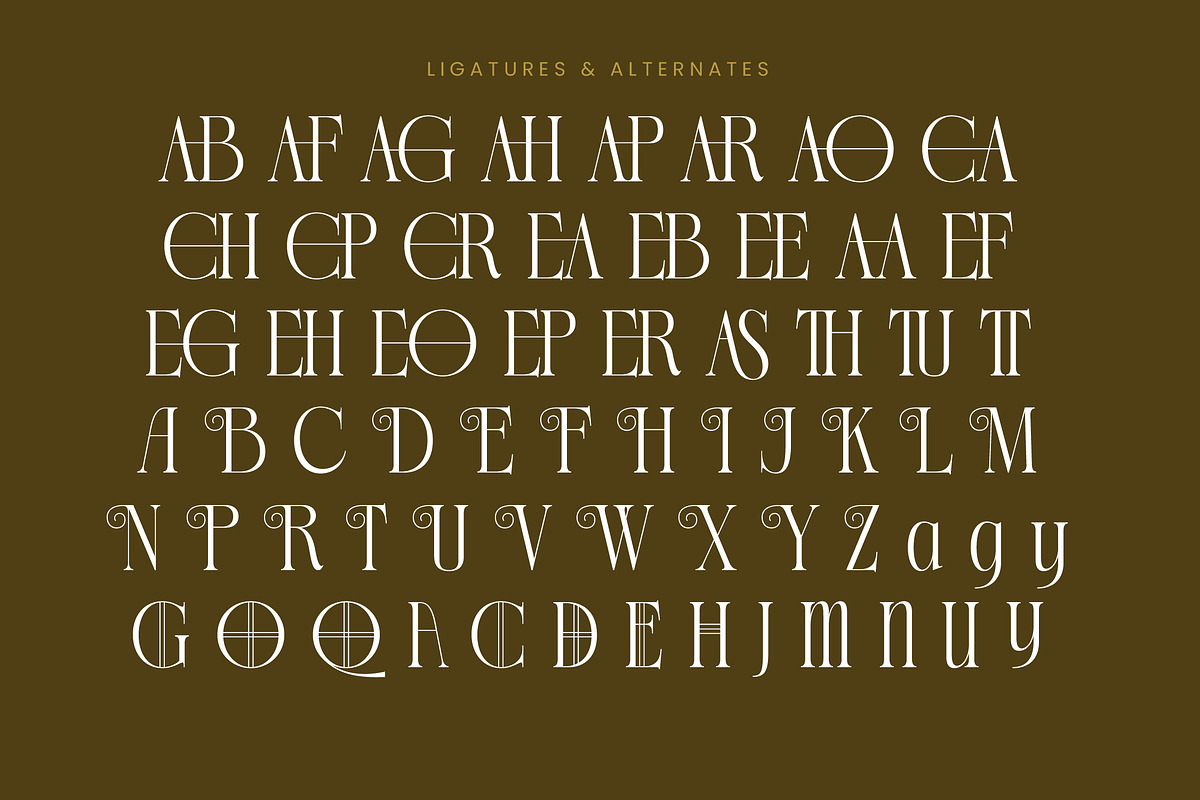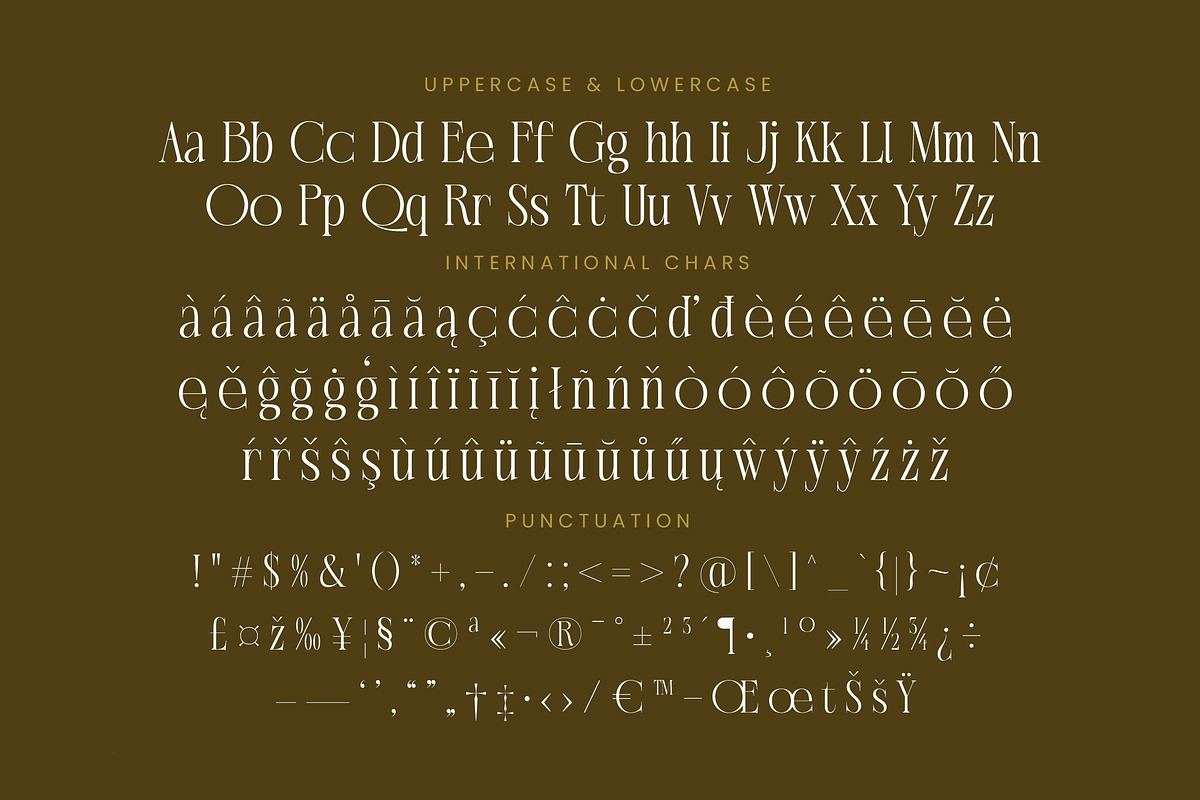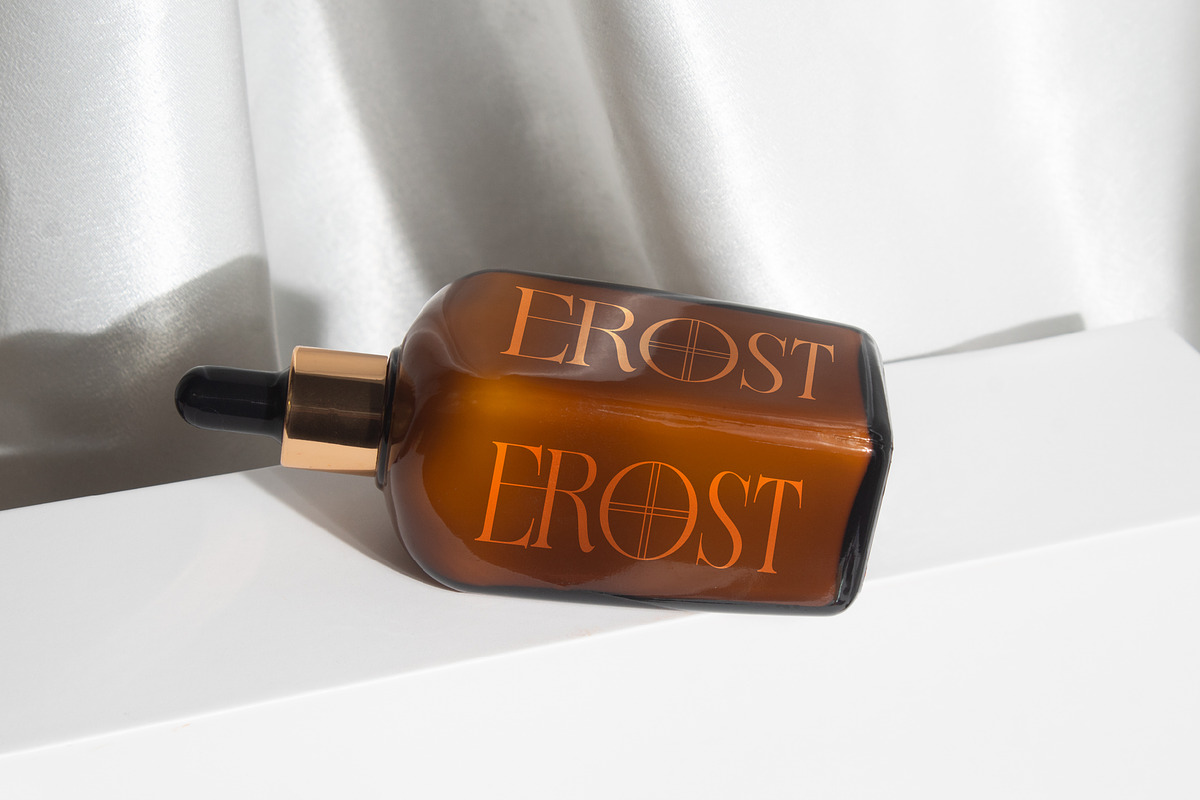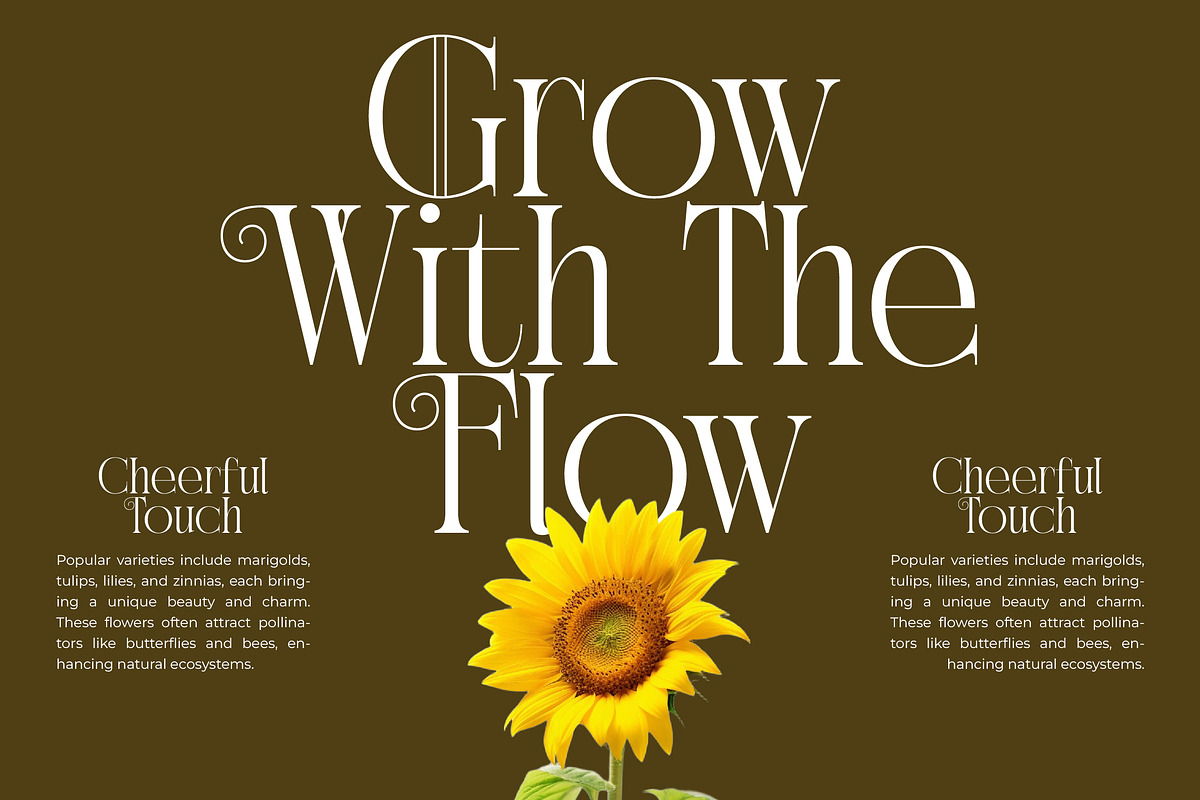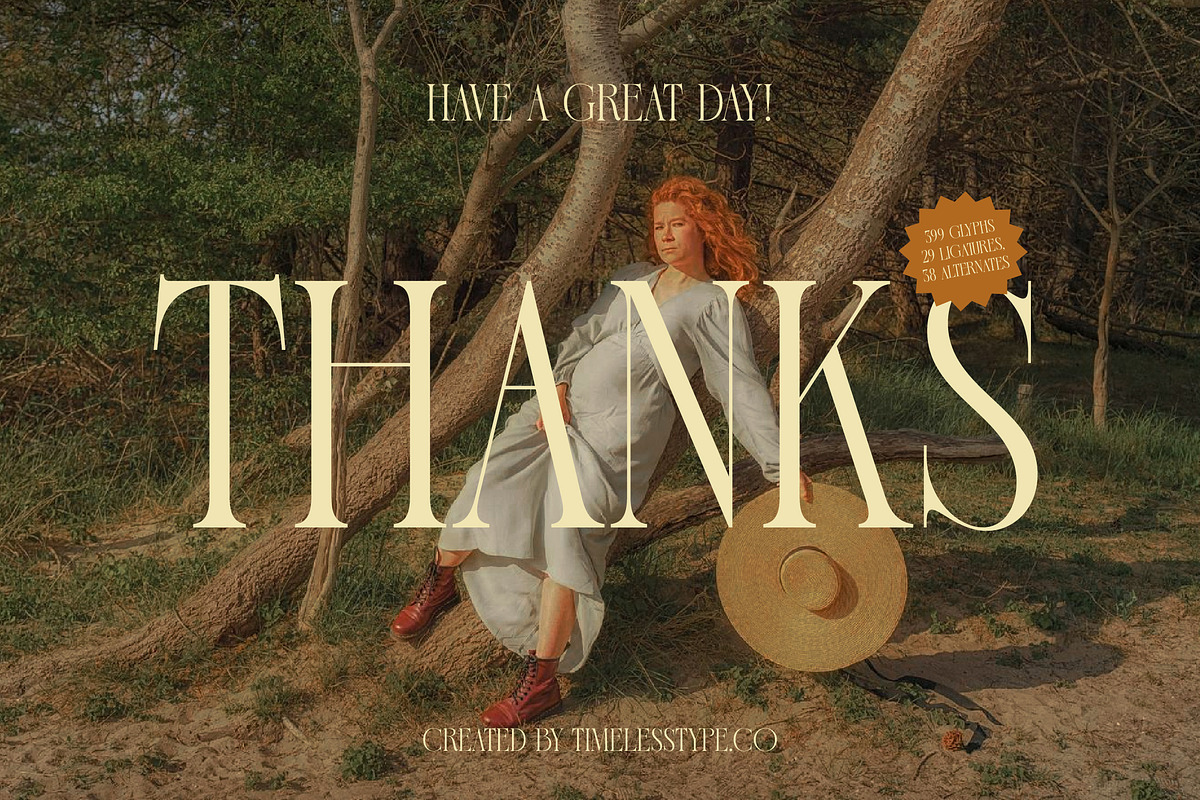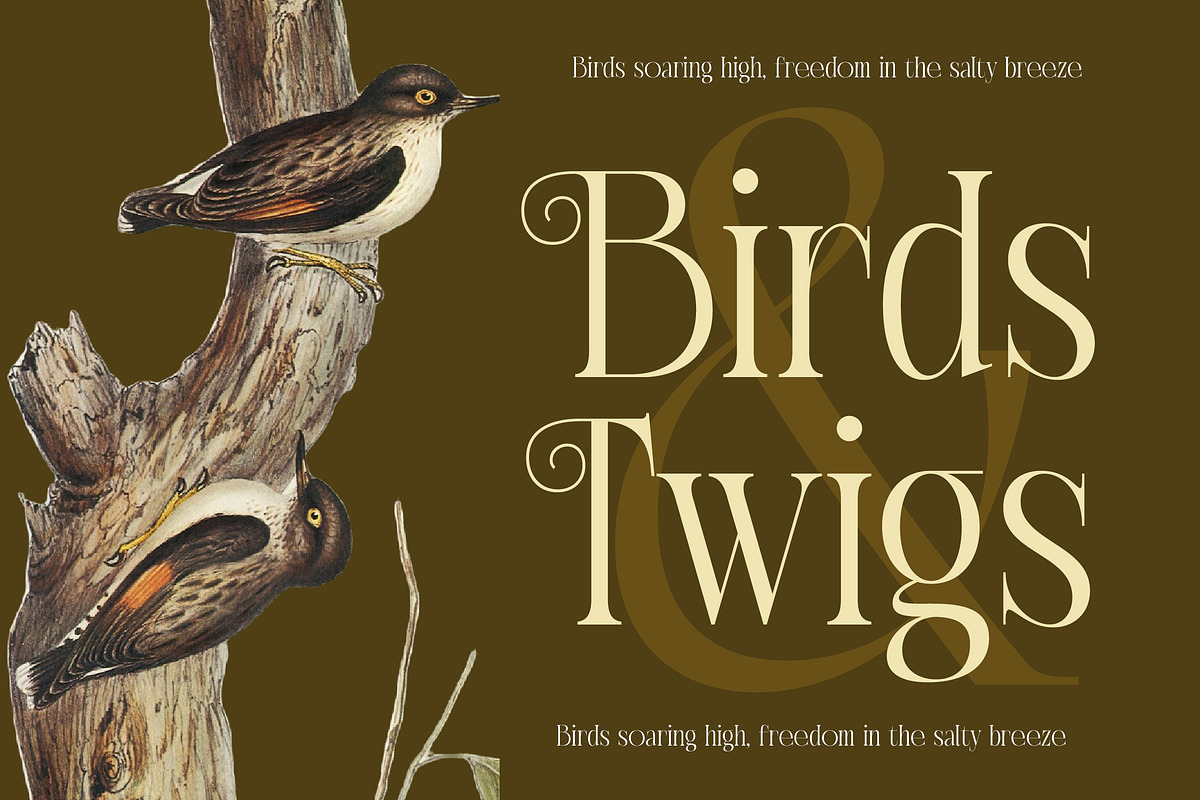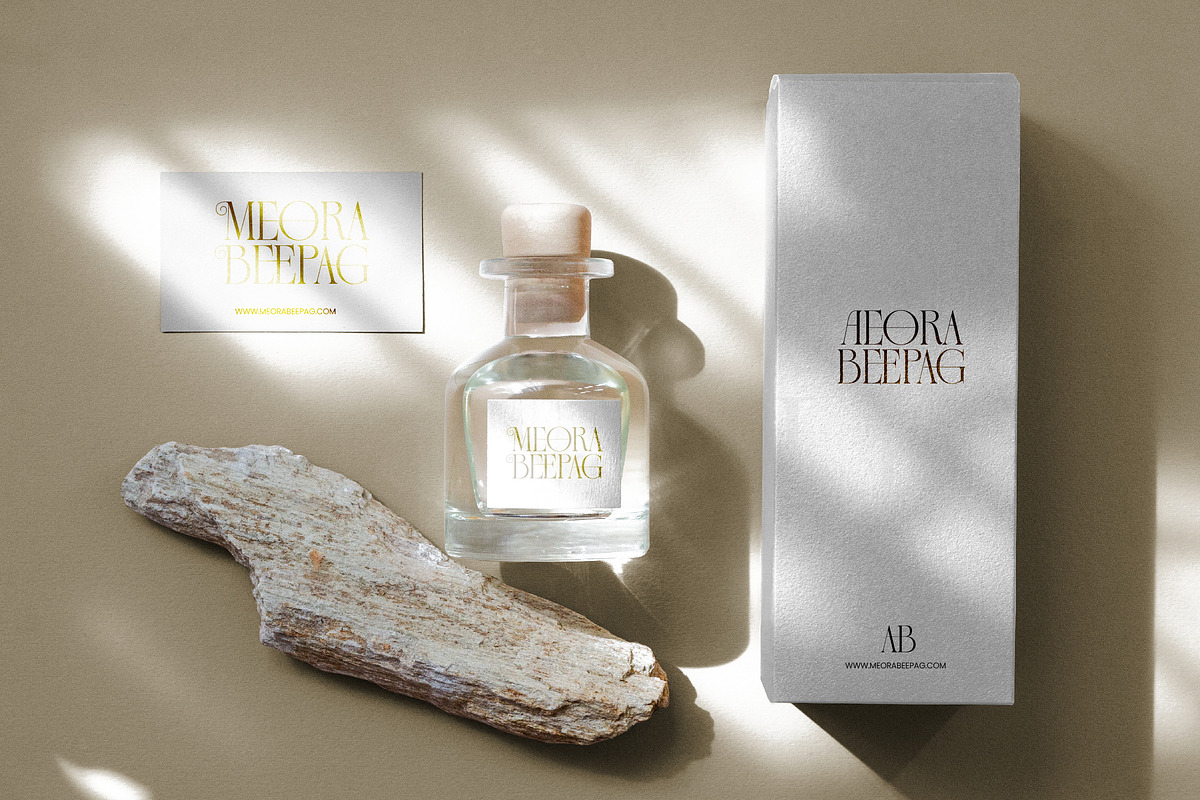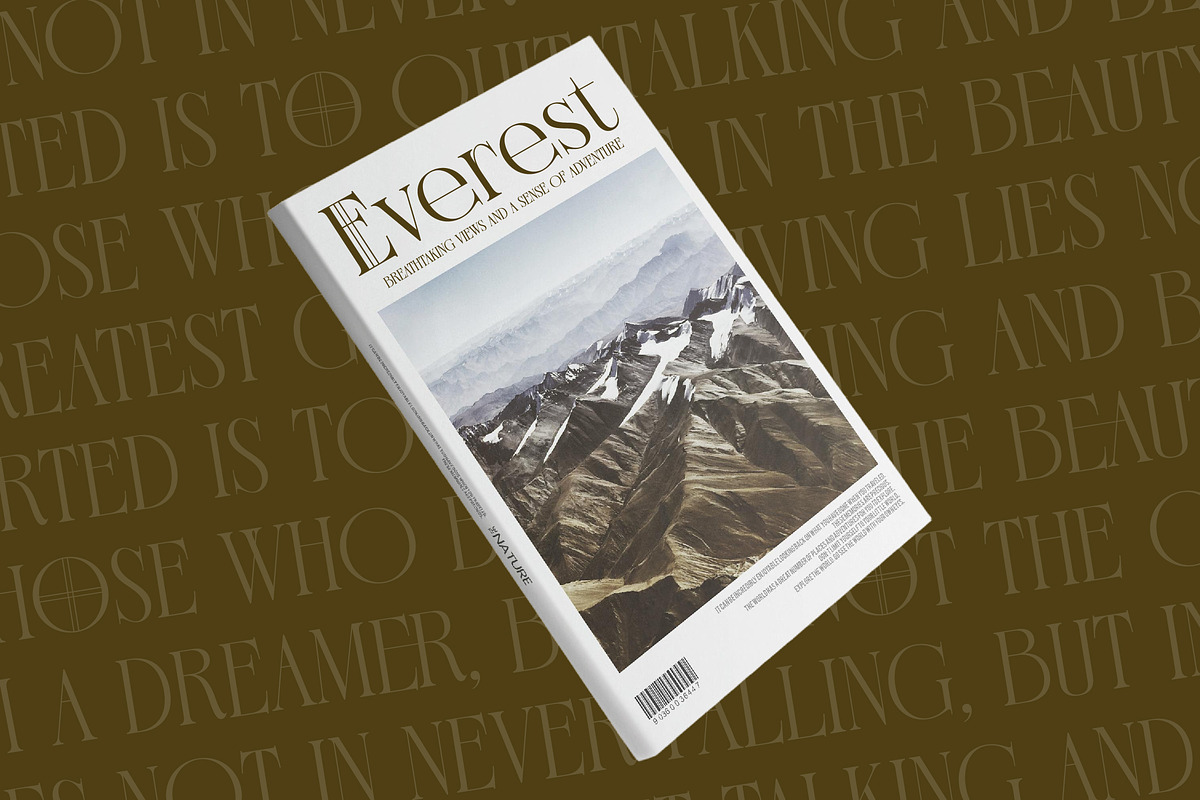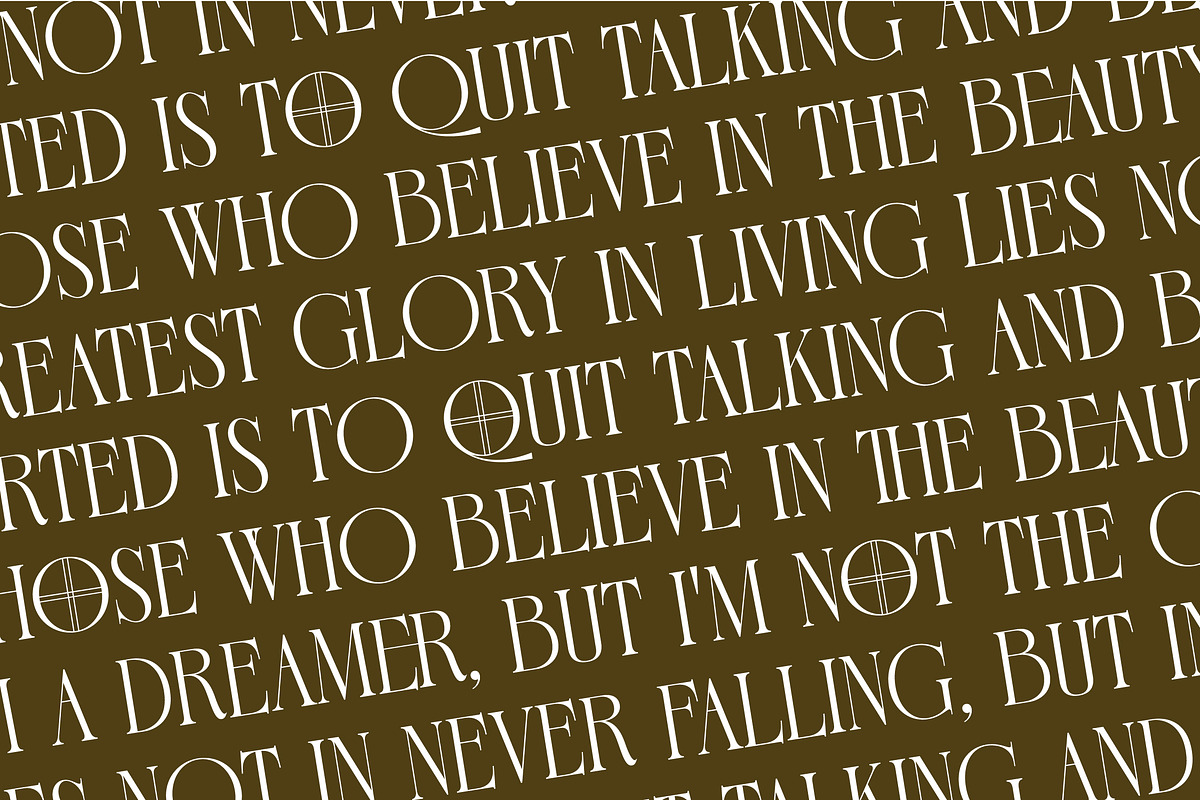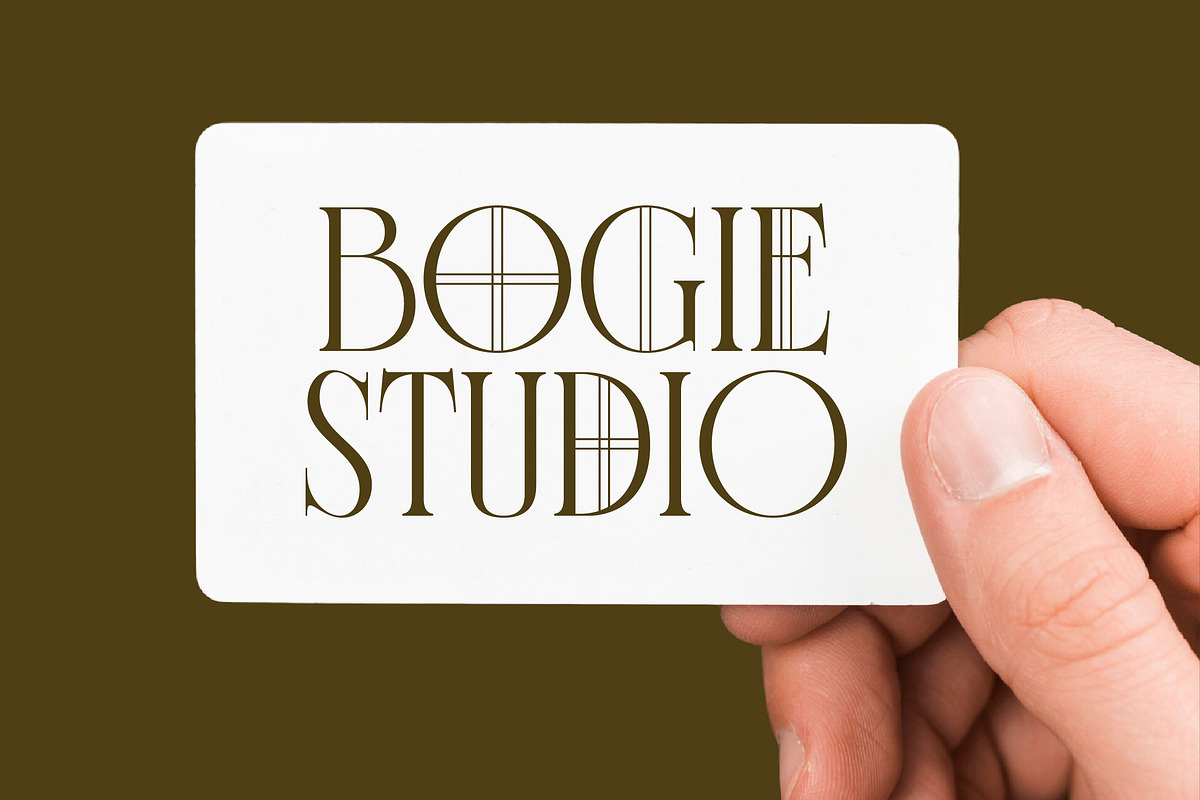
Exago Maona Vintage Serif Display
Introducing Exago Maona, a captivating display face that dances between the lines of timeless grace and avant-garde structure. This typeface is designed to command attention while whispering stories of refined elegance and artistic boldness.
Inspired by the sun-drenched landscapes and the structured beauty of classical architecture, this font draws from a palette of earthy tones and high-fashion aesthetics. It channels the spirit of vintage editorial spreads where every letterform was a piece of art, blending organic flow with sharp, intentional geometry.
As a modern serif display, it strikes a perfect balance between delicate curves and striking verticality, making it an essential tool for luxury typography. Its high-contrast serif design ensures a sophisticated presence, offering a high-impact editorial font that delivers a powerful branding impact for discerning designers.
Perfectly aligned with the current modern serif trend, this typeface meets the demand for editorial display fonts that feel both nostalgic and future-forward. It captures the essence of character-driven typography, allowing brands to stand out in a crowded digital landscape through unique, customized letterforms.
This versatile typeface is the ultimate choice for high-end logo design and comprehensive branding projects that require a touch of class. From sophisticated editorial layouts and luxury packaging to romantic wedding stationery and cutting-edge fashion lookbooks, it adapts seamlessly to any premium context.
The extensive library includes over 700 glyphs, featuring a stunning array of ligatures and unique alternates that allow for endless creative combinations. With graceful swashes and full multilingual support for international characters, it provides the technical depth needed for global design excellence.
- Ligature 29 Alternate 38